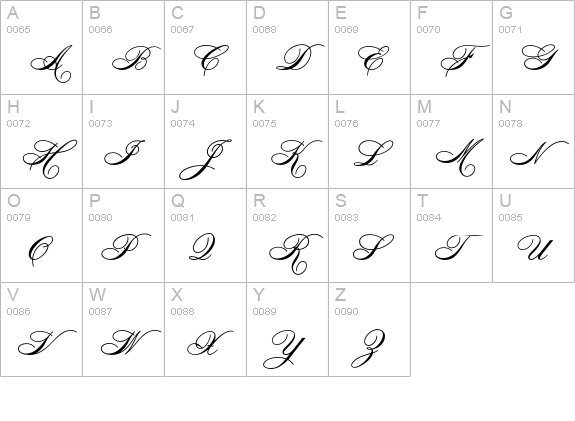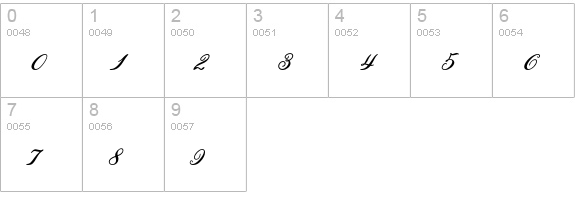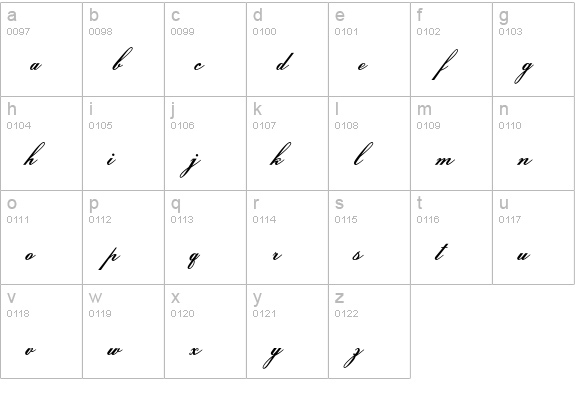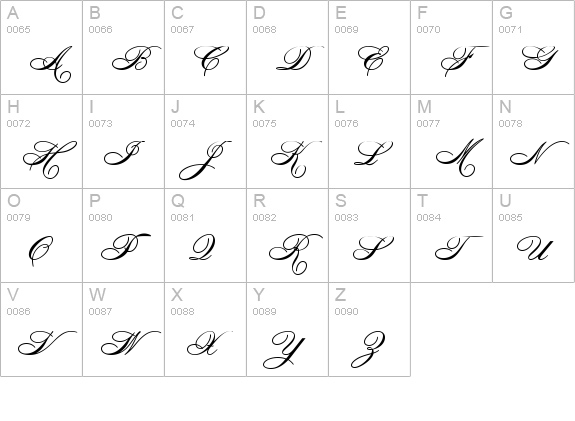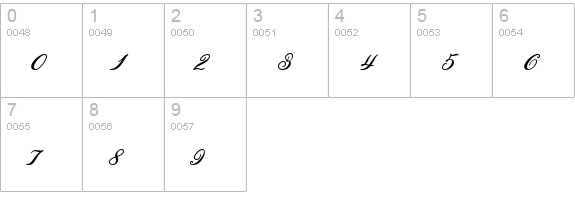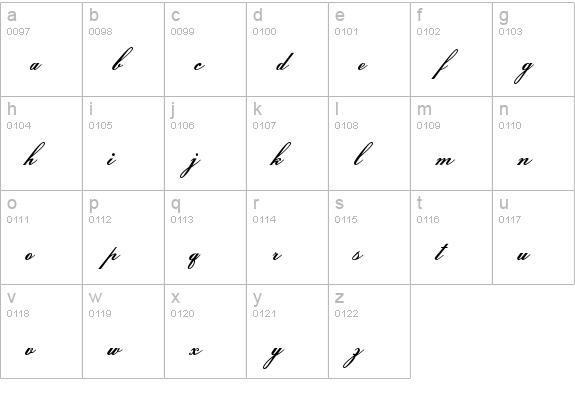
Helinda Rook Std is a captivating and versatile font that exudes elegance and sophistication. Its unique and intricate letterforms make it perfect for adding a touch of class to any project. With its balanced proportions and refined lines, Helinda Rook Std is sure to make a lasting impression. This font is not only visually stunning but also highly functional. Its legibility and readability make it suitable for a wide range of design applications, including branding, advertising, editorial design, and more. Whether you're creating a logo, designing a magazine layout, or crafting a beautiful invitation, Helinda Rook Std will elevate your design to new heights. One of the best things about Helinda Rook Std is that it is freely available to download at FontsMarket.com. This means that you can easily access this exquisite font and incorporate it into your designs without any hassle. The freedom to use Helinda Rook Std without any restrictions gives you the creative flexibility to bring your vision to life. With its timeless beauty and versatility, Helinda Rook Std is a must-have font for designers and creatives alike. Its intricate details and refined aesthetics will effortlessly enhance the visual impact of your projects. Download Helinda Rook Std for free at FontsMarket.com and unlock a world of possibilities for your design endeavors.